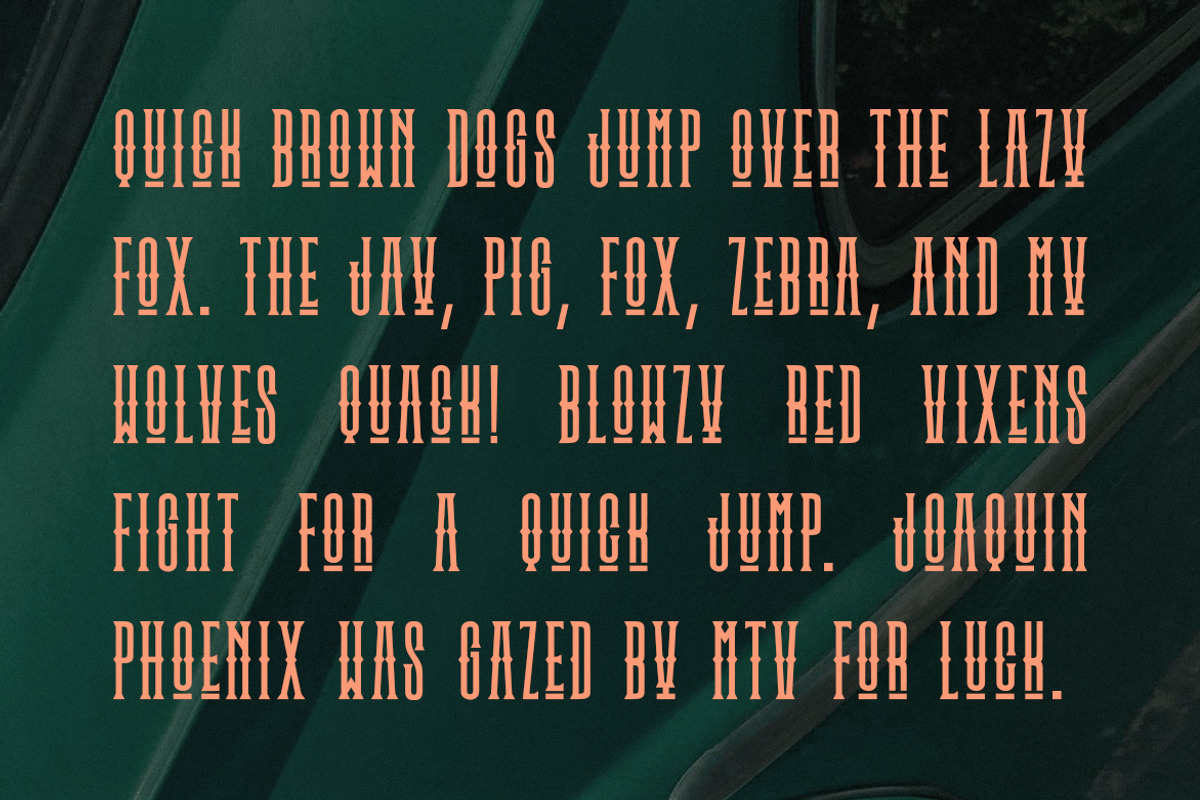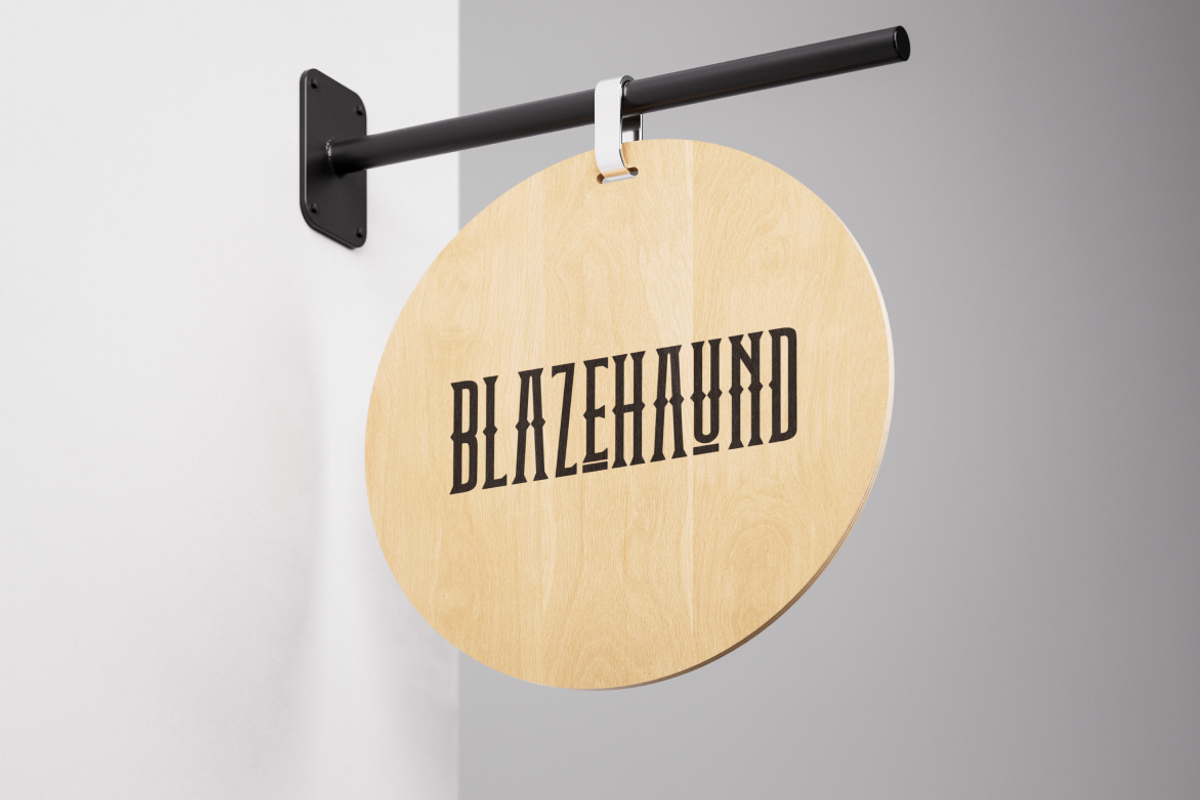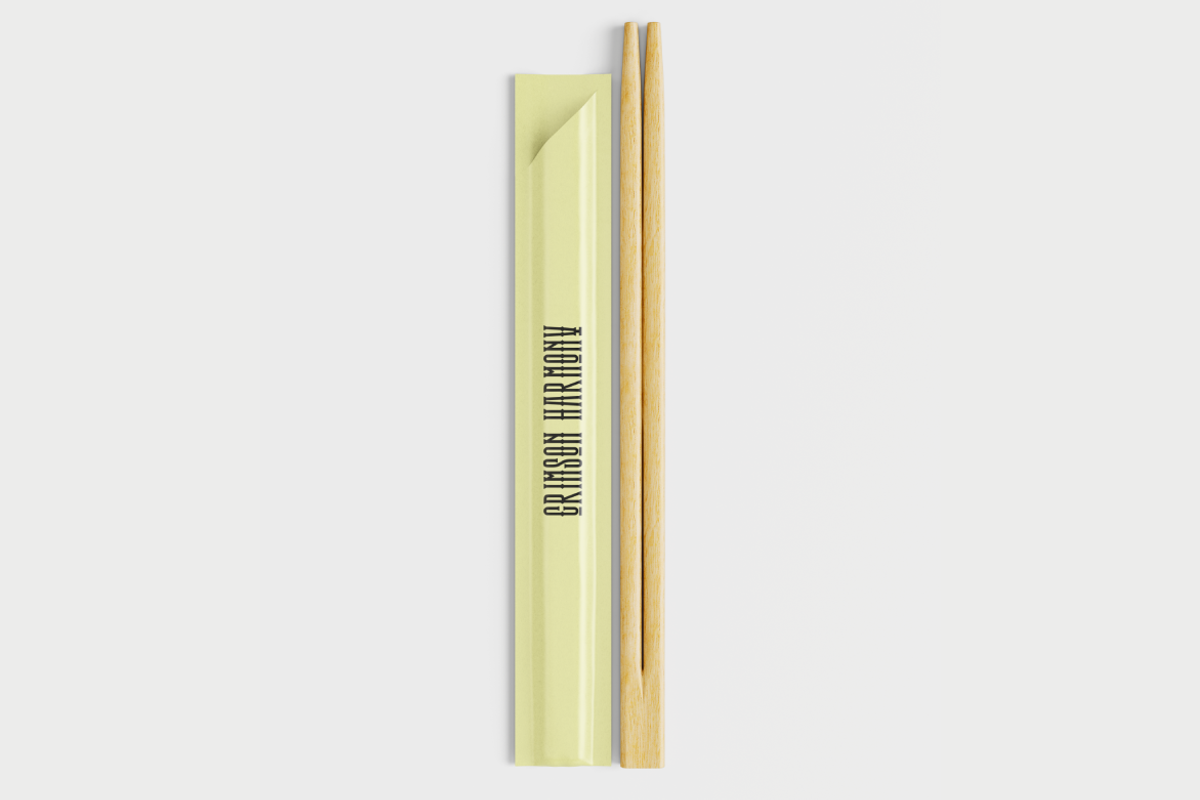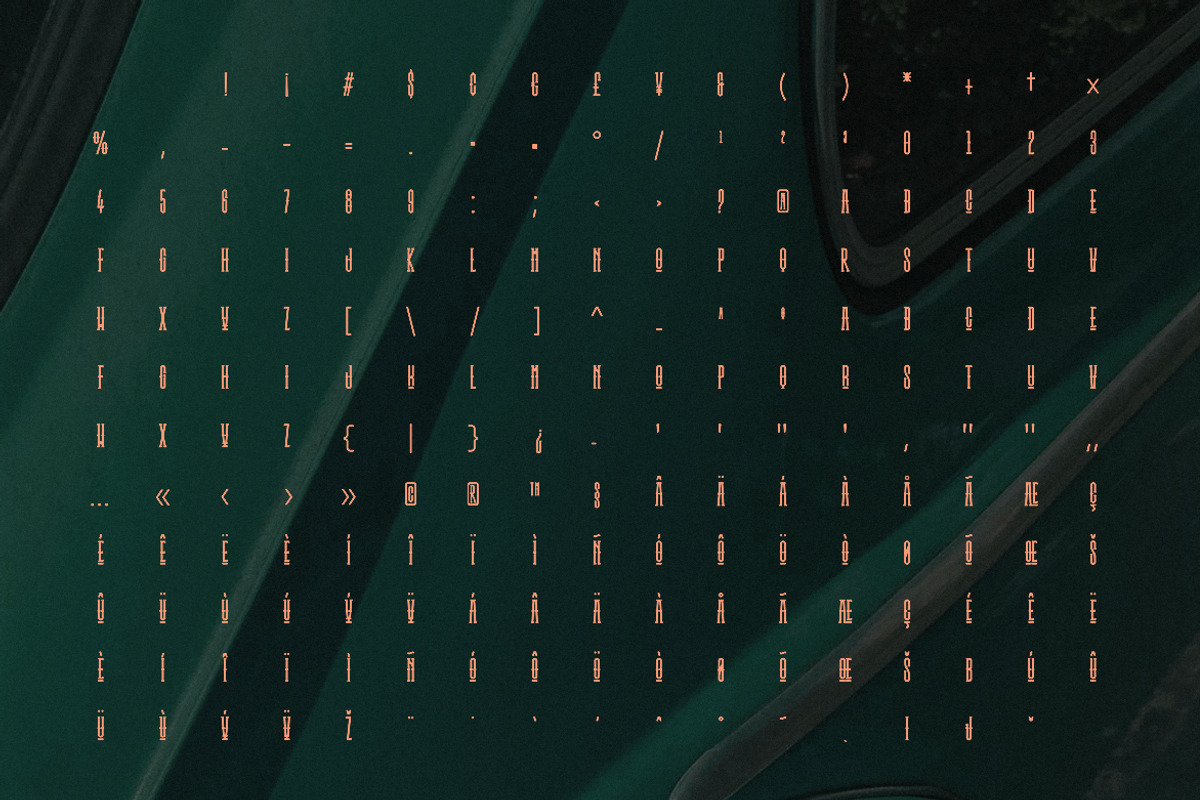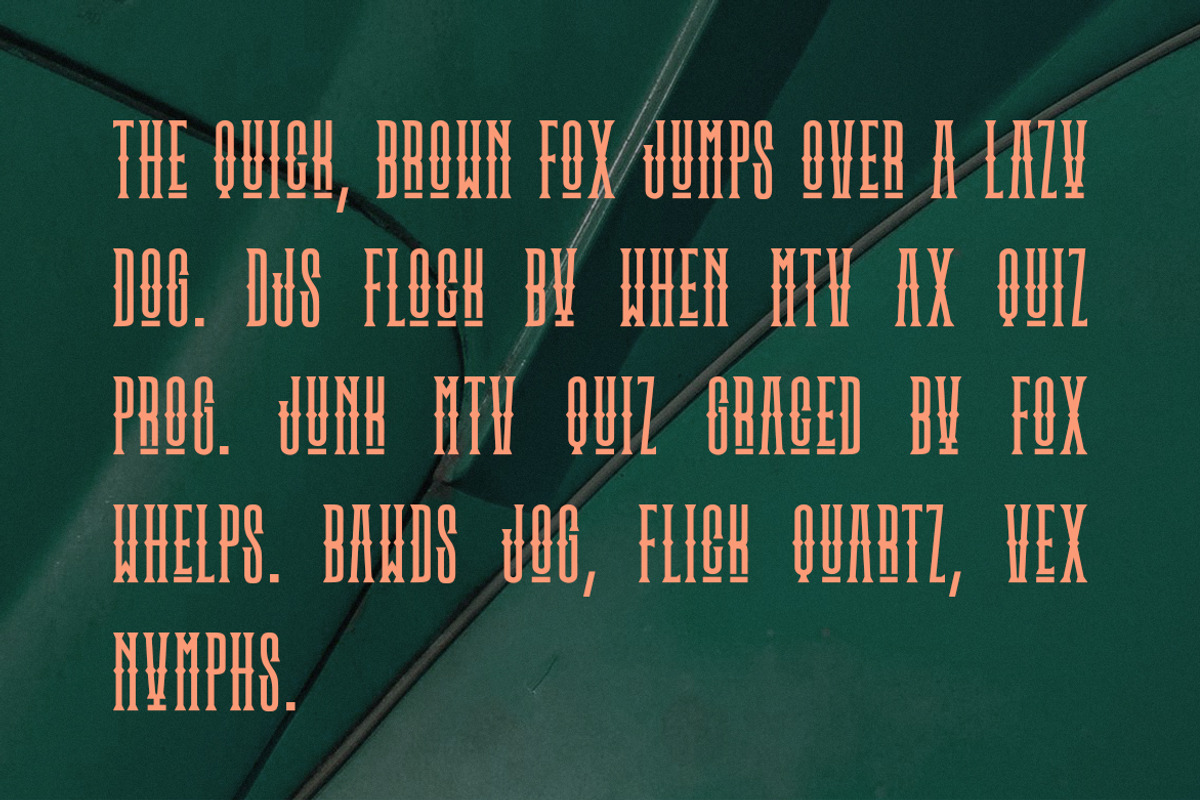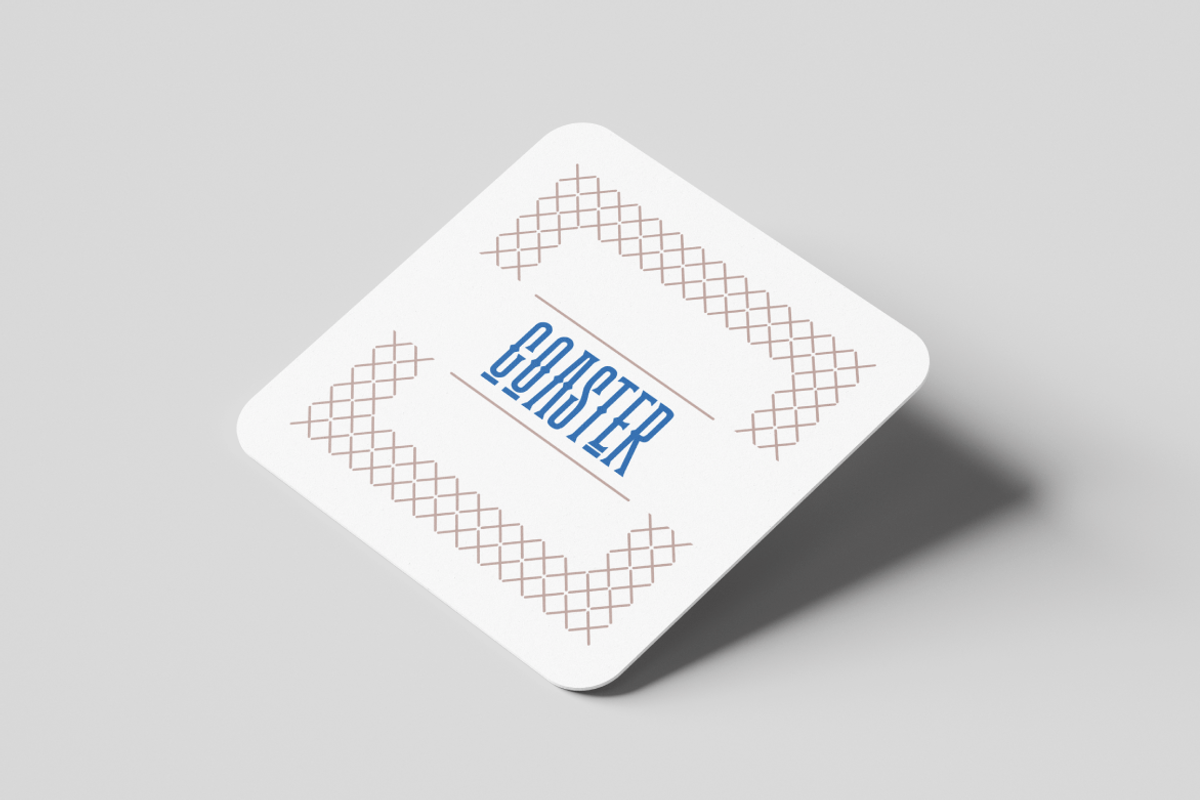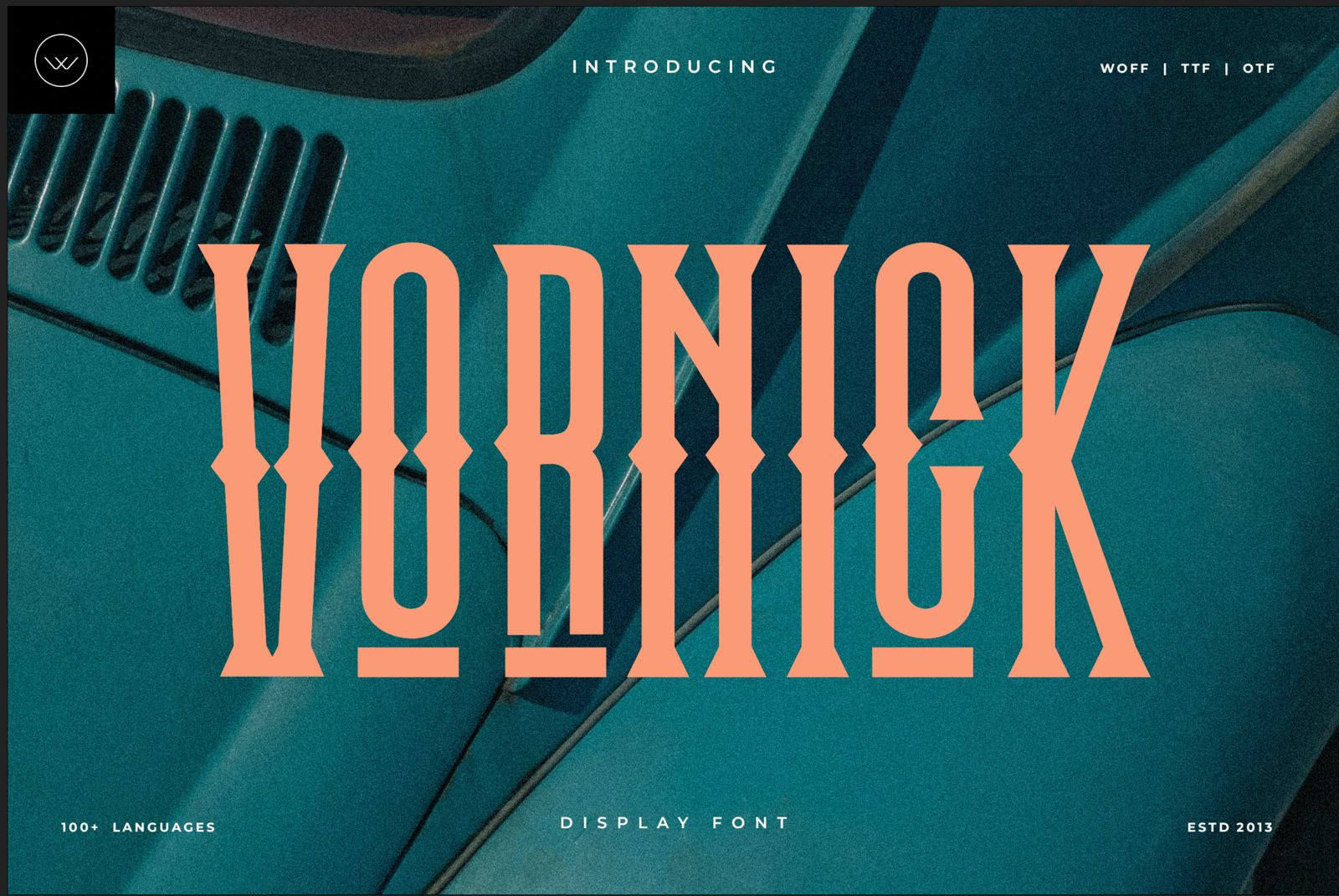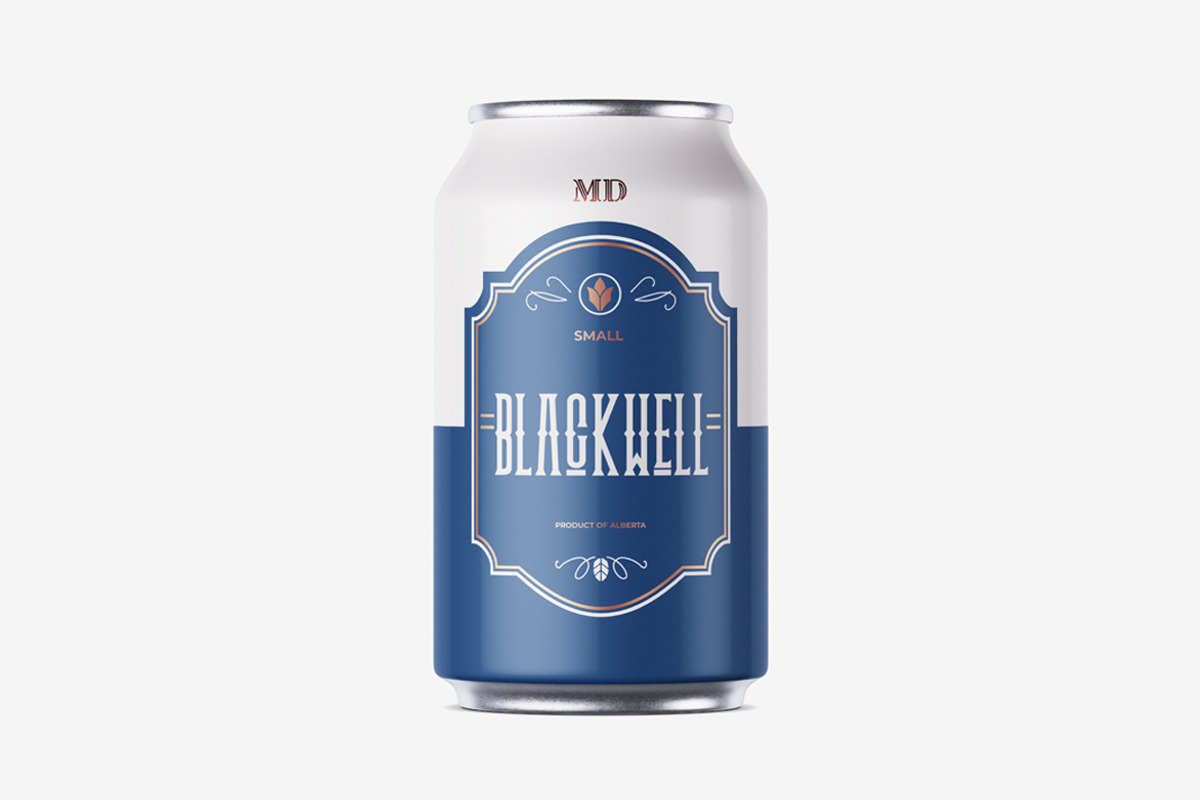
Vornick – Vintage Display Font
Vornick Vintage Display Font captures the golden charm of classic signage and reimagines it for the modern designer. This bold, condensed typeface blends the nostalgia of Americana lettering with clean, contemporary style. It’s perfect for creators who want strong impact, personality, and elegance in every design.
Every line and serif in Vornick Vintage Display Font is shaped to stand out. Its tall structure and decorative details give it both power and refinement. Use it confidently on posters, packaging, logos, or film titles — anywhere your message needs to make an unforgettable impression.
Inspired by vintage fairground signs and rock-and-roll album covers, this font balances heritage with innovation. It includes uppercase letters, numerals, punctuation, and over 200 handcrafted glyphs, making it flexible for a wide range of projects.
Designed by Webhance Studio, this multilingual display font suits beverage branding, music events, editorials, and packaging that demands bold visual identity. Whether you’re designing for vintage-inspired products or modern campaigns, Vornick adds a timeless edge to your work.
Bring the magic of craftsmanship and contemporary design together with Vornick Vintage Display Font — a font that celebrates tradition while standing boldly in the present.